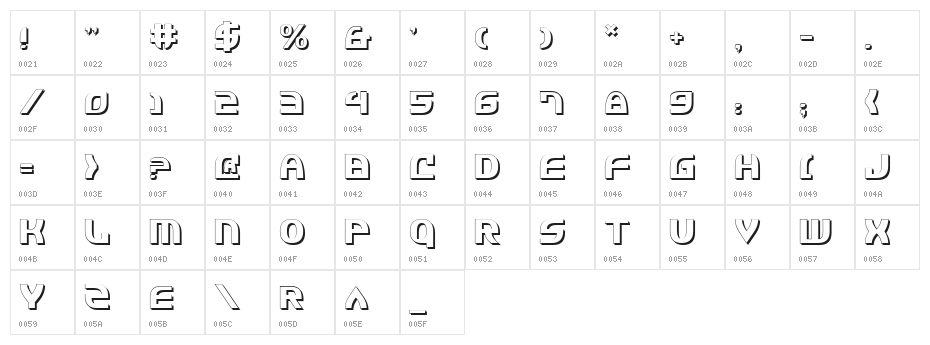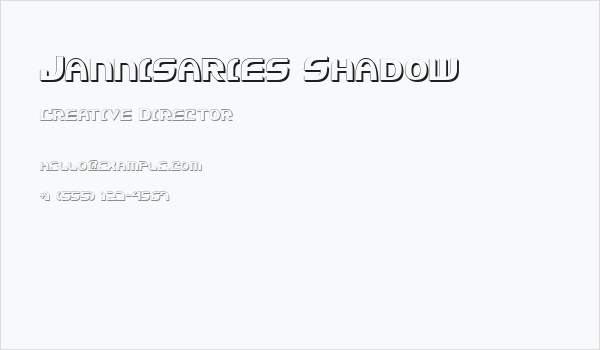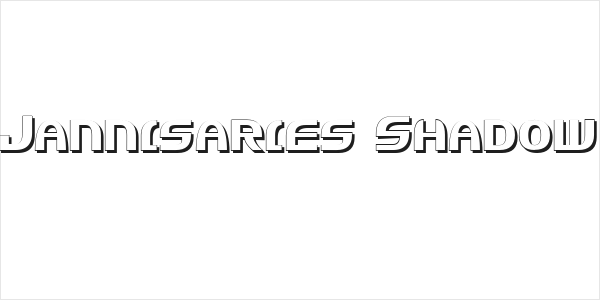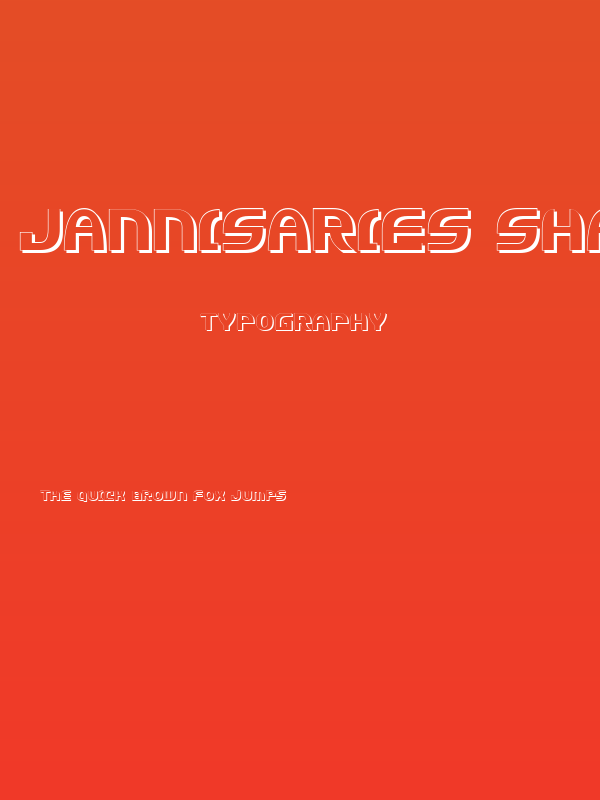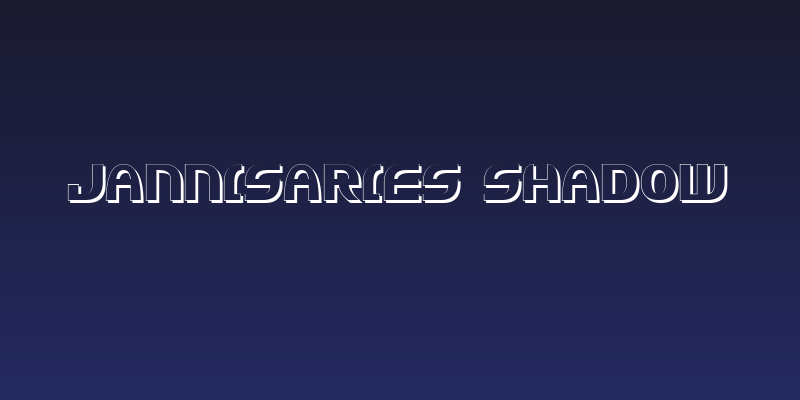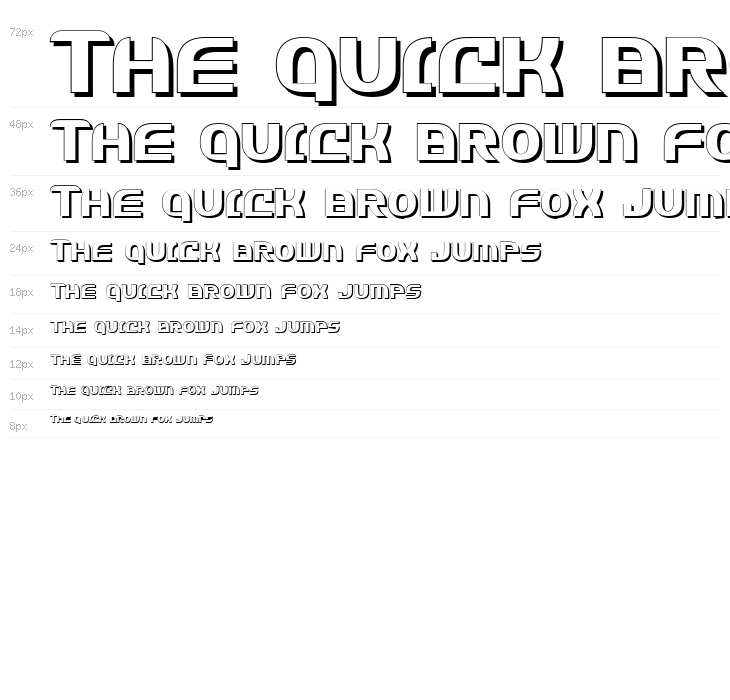
Jannisaries Shadow Font
Jannisaries Shadow Description
This font features a bold, geometric design with a distinct shadow effect that gives it a three-dimensional appearance. The characters are constructed with clean, straight lines and sharp angles, creating a futuristic and modern aesthetic. The shadow effect is consistent across all characters, adding depth and visual interest. The uppercase and lowercase letters maintain a uniform style, while the numerals and special characters complement the overall design. This font is ideal for projects that require a strong, impactful visual presence.
| Proposed Projects | Ideal for posters, logos, video game graphics, and futuristic-themed designs. |